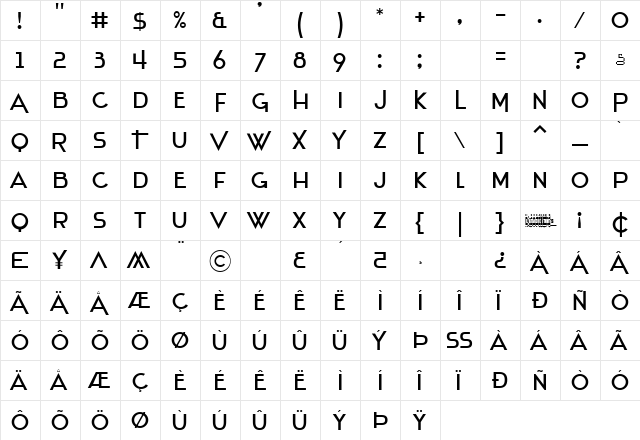
Stentiga Regular
Design Context for Stentiga Typeface
Stentiga takes a measured approach to typography — its balanced proportions and neutral character make it a reliable workhorse for both digital and print work.